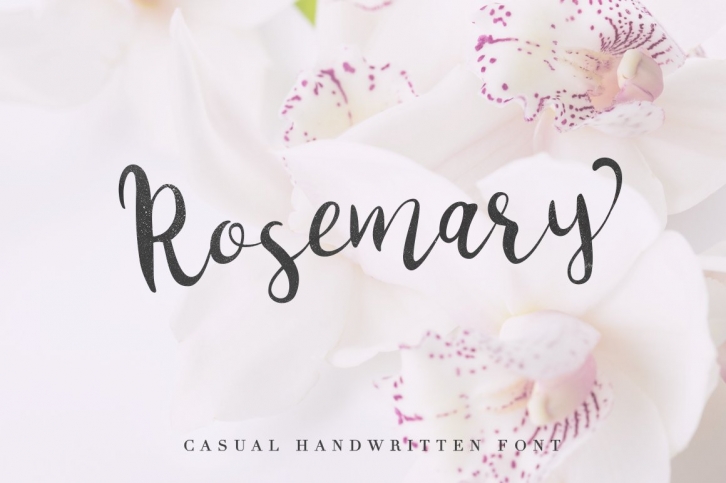
Rosemary script - a new fresh handmade calligraphy font.
This fonts is ideal for branding and decorate your any project. This fonts are perfect for wedding invitation or your blog. Also with their help, you can create a logo or beautiful frame for your home. Or just use for your small business, book covers, stationery, marketing, magazines and more.